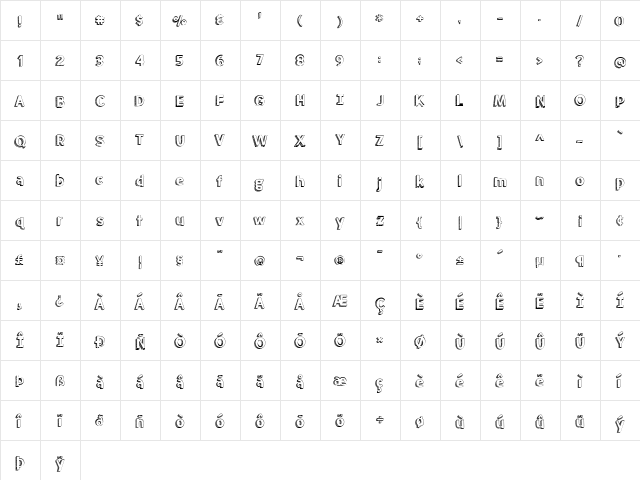
meatloaf Regular Font Preview
meatloaf Regular
meatloaf Regular Font Details
| Foundry | Brittney Murphy |
| Designer | Brittney Murphy |
Design Context for meatloaf Typeface
meatloaf is a composed and adaptable typeface that performs quietly and consistently across a wide range of design contexts.